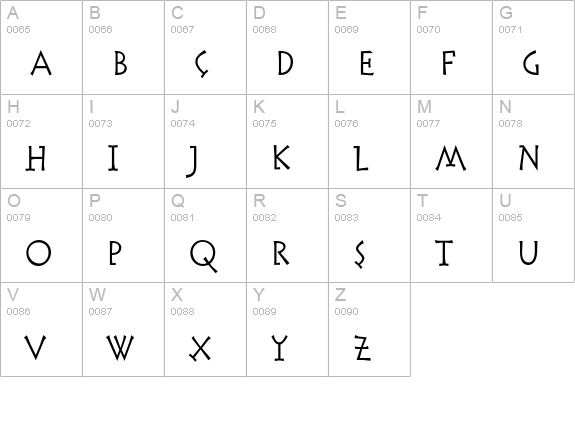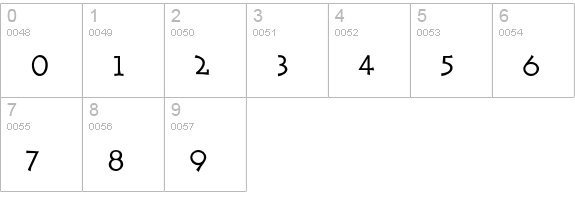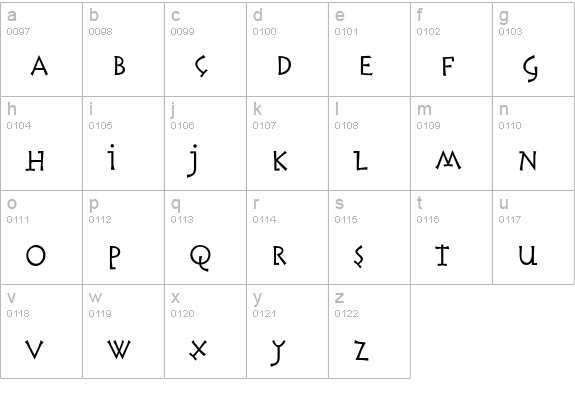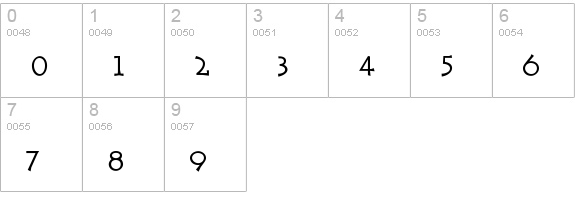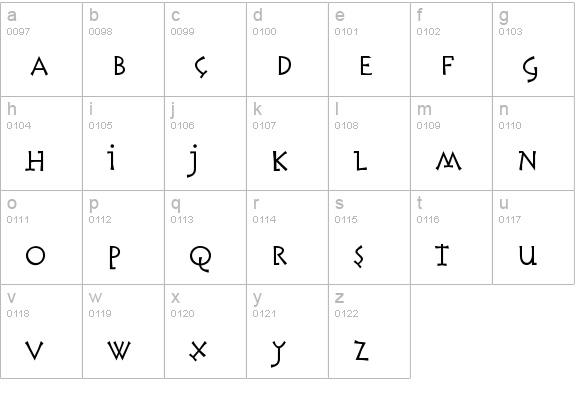
Chelsea-Book is a comfortable, highly readable variant in the Chelsea typeface family \xE2\x80\x94 well suited to long-form body text, articles, and editorial content.
Chelsea-Book font is a classic and elegant typeface that exudes sophistication and style. With its clean lines and timeless appeal, this font is perfect for a wide range of design projects, from invitations to branding and beyond. The Chelsea-Book font is meticulously crafted to bring a touch of class to your work, making it stand out from the crowd. The best part? Chelsea-Book font is available for free download at FontsMarket.com. This means you can easily access this stunning font and use it in your projects without any cost. Don't miss out on the opportunity to enhance your designs with the beauty of Chelsea-Book font - download it today and elevate your creations to new heights.